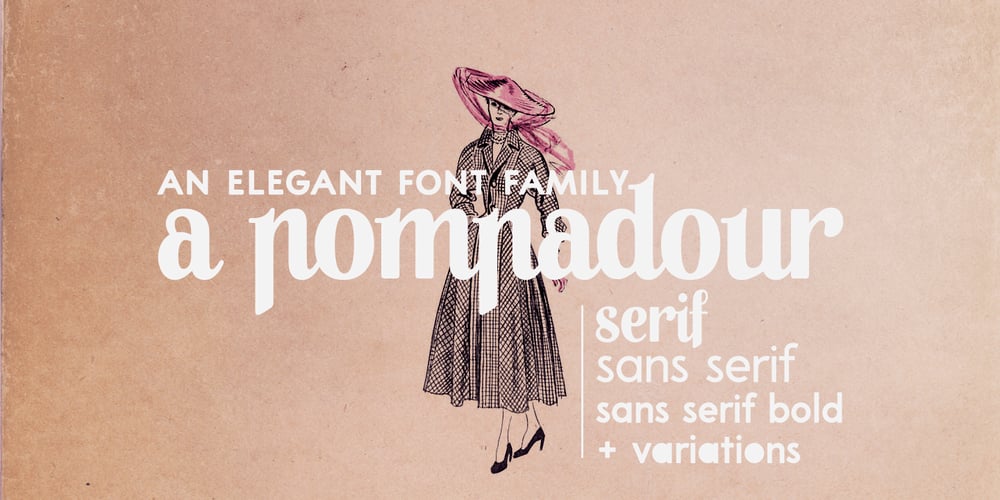
A Pompadour Font Family was designed by Ana Parracho and published by Ana’s Fonts. A Pompadour contains 5 styles and family package options. A Pompadour is an elegant retro font family, inspired by vintage advertising. It includes two styles (plus variations!) that go together nicely. The fonts include OpenType features such as ligatures, small caps, and swashes. A Pompadour is perfect for short and long texts. Use it in magazine layouts, posters and advertising, branding and packaging, business cards, resumes, etc.